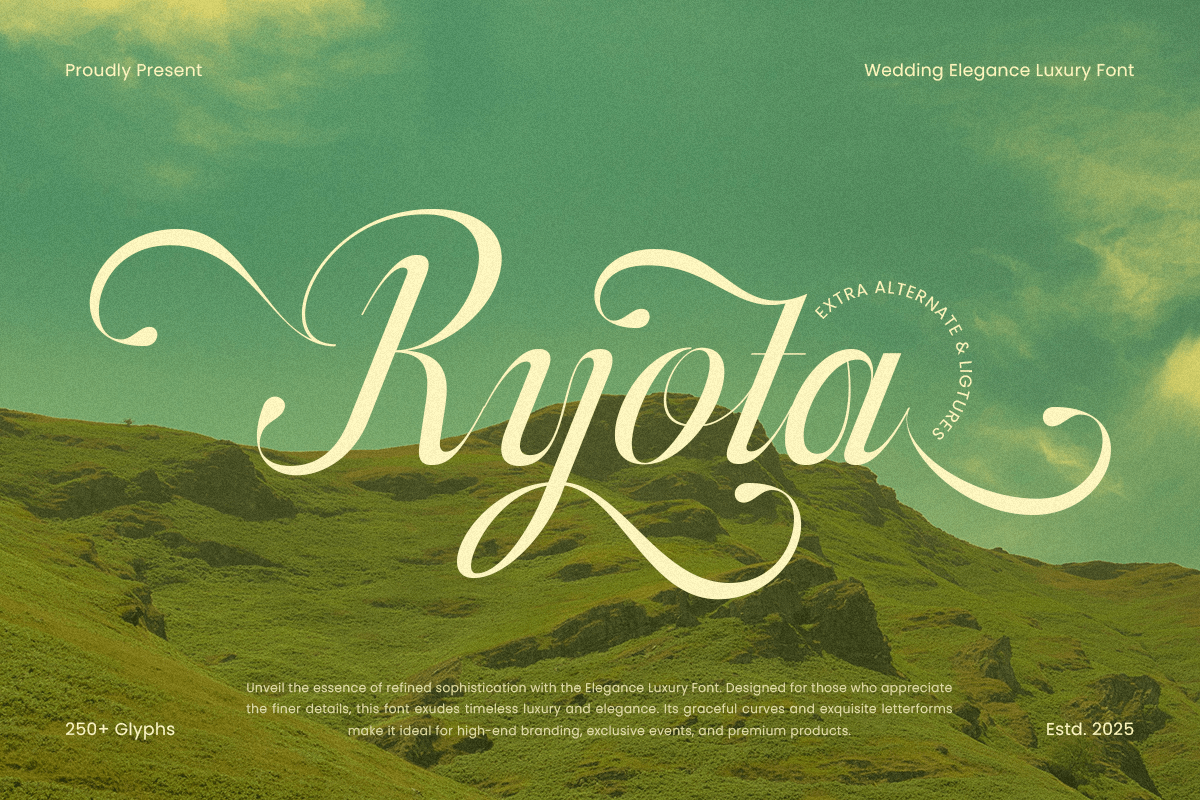
Ryota
-Wedding Elegant Script Luxury FontRyota - Wedding Elegant Script Luxury Font
Ryota is an elegant wedding script font that captures timeless beauty and luxury. Perfect for high-end wedding invitations, luxury branding, and refined designs, Ryota combines delicate, flowing curves with sophisticated script lettering for a graceful, upscale feel.
Whether you're designing wedding stationery, elegant logos, or premium product branding, Ryota adds a refined and professional touch. Inspired by traditional calligraphy and modern elegance, this font is ideal for creating memorable, classy designs for luxury events and brands.
Ryota – Wedding Elegant Script Luxury Font Features
Elegant script with refined, luxurious letterforms
Ideal for wedding invitations, branding, and high-end design projects
Timeless, graceful design with a modern touch
OpenType features for advanced typographic flexibility